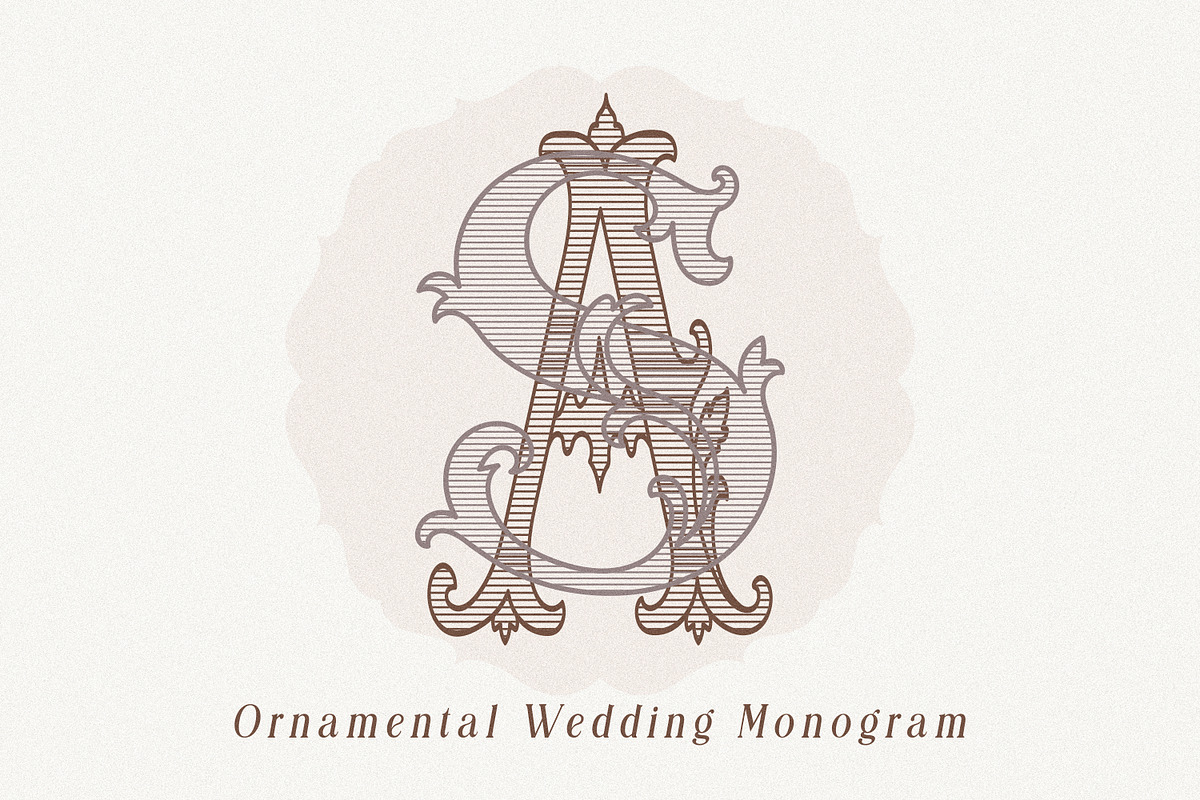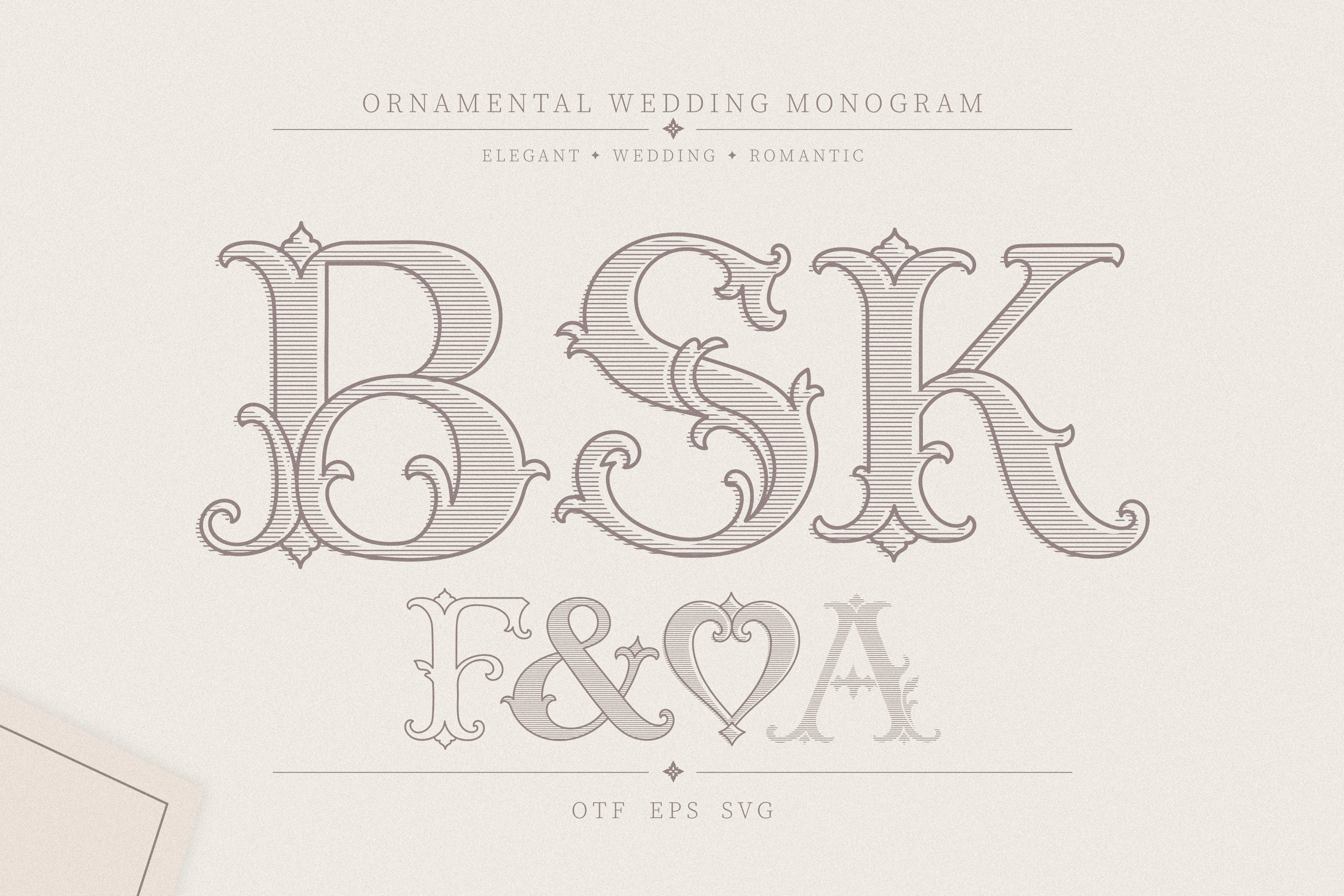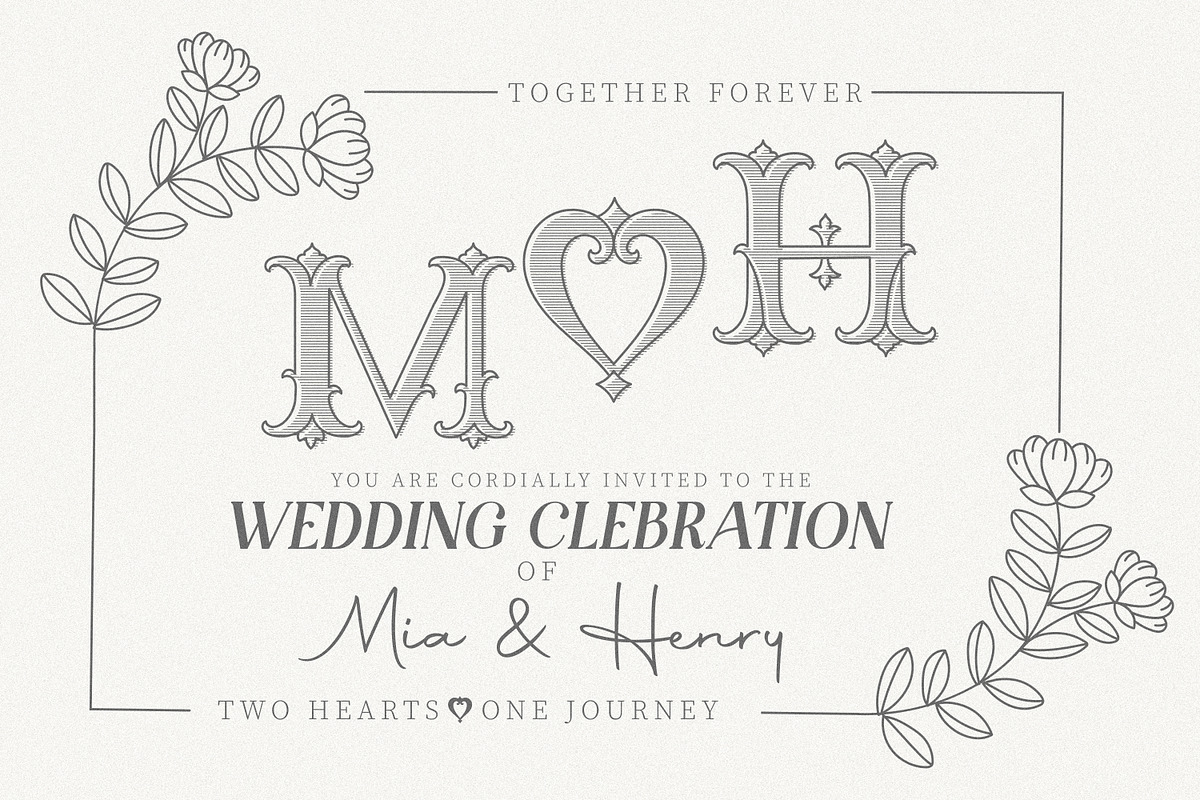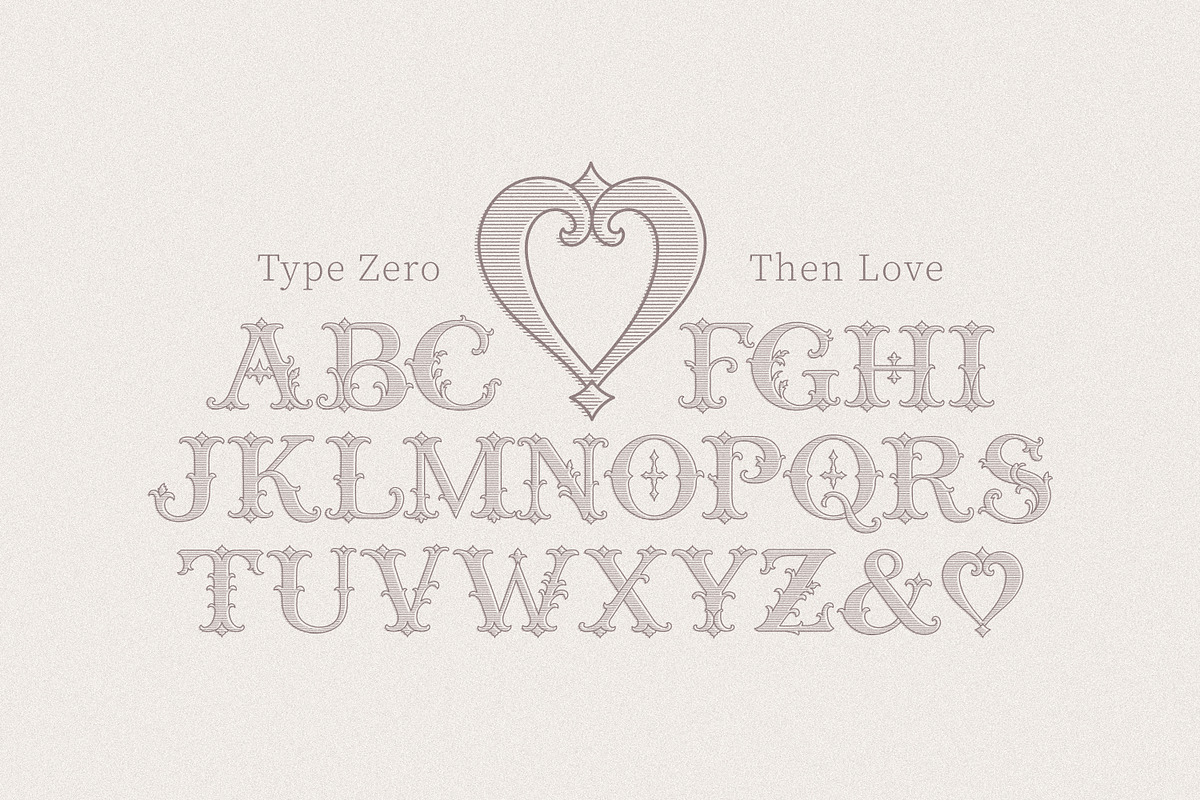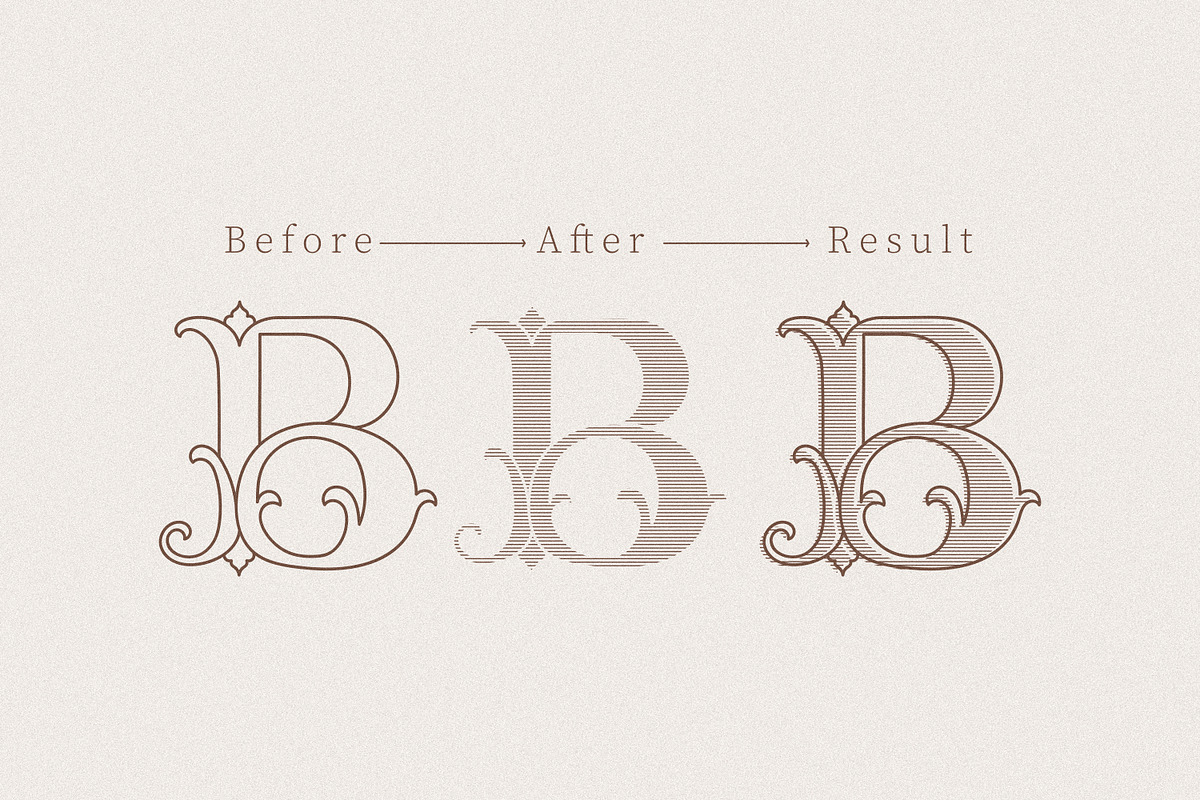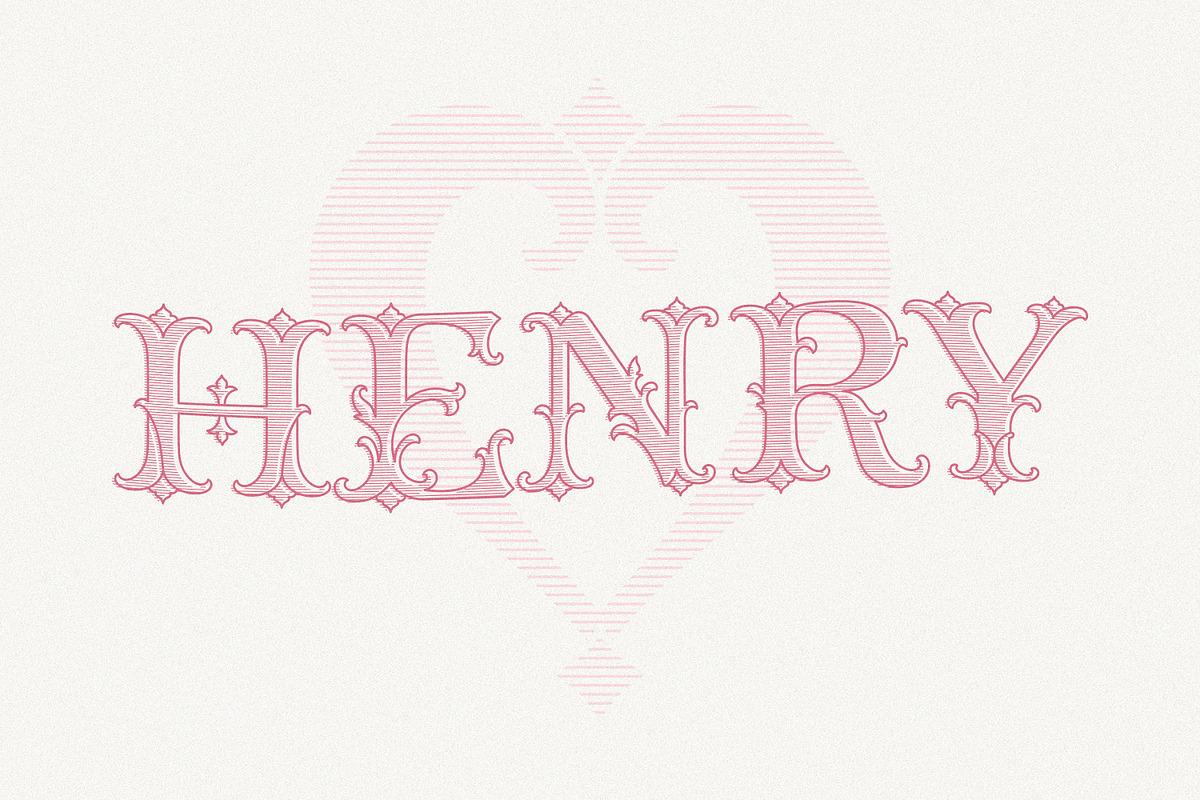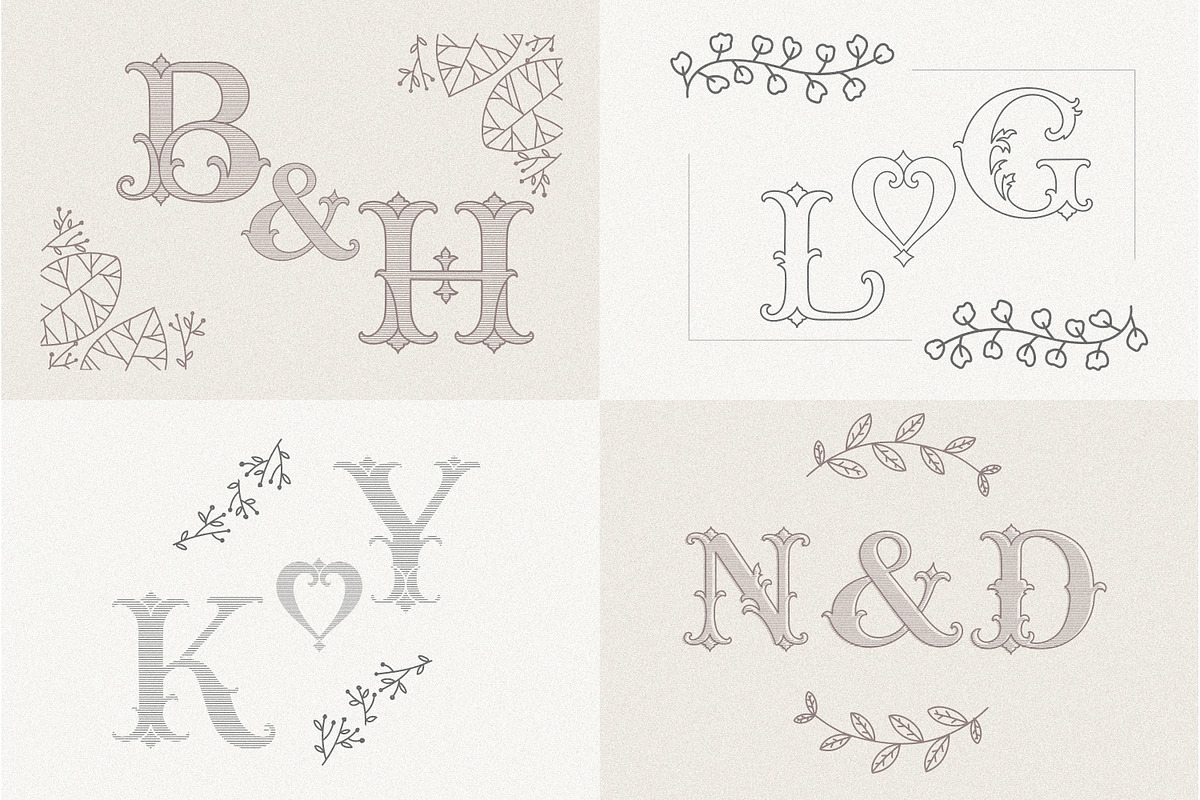
Ornamental Monogram fonts set
Ornamental Monogram an elegant decorative font collection inspired by classic vintage and monogram lettering. Perfect for creating beautiful wedding monograms, invitations, logos, stationery, and decorative elements. Designed for elegant weddings, luxury branding, invitations, stationery, and personalized projects.
Decorative wedding monograms Alphabet
Perfect for weddings, branding & invitations